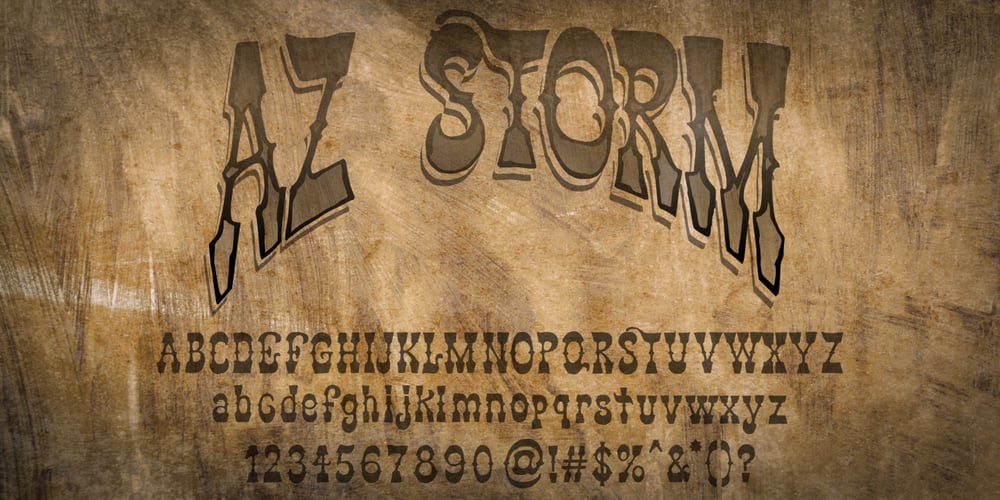
AZ Storm Font Family was designed by published by Artist of Design. AZ Storm contains 1 styles and family package options. AZ Storm was inspired from old ’70’s skateboard logo. This font was designed for use as a fun bold headline.